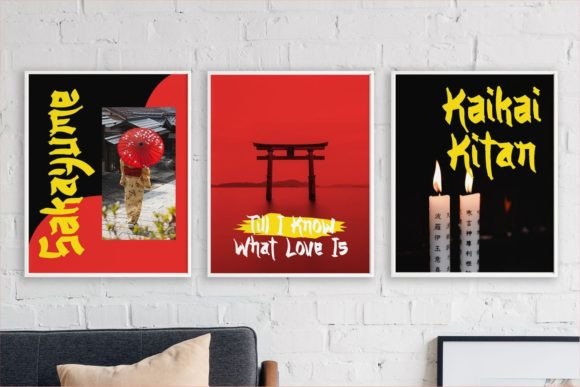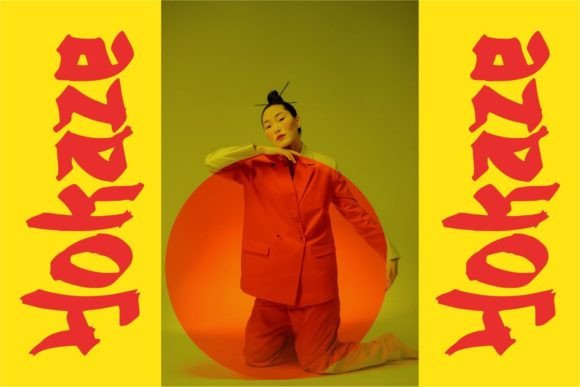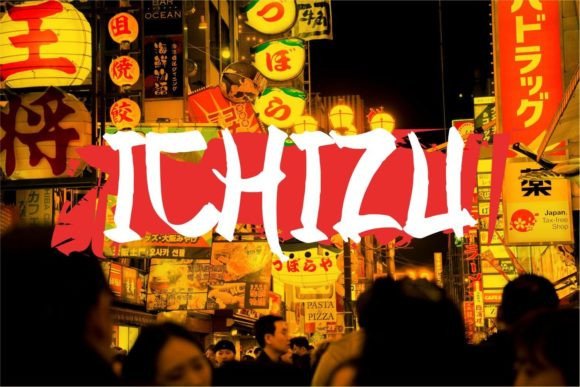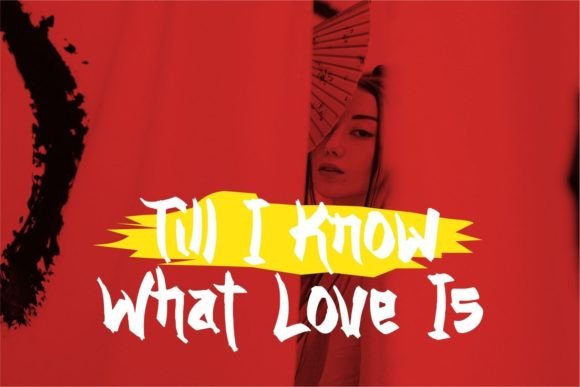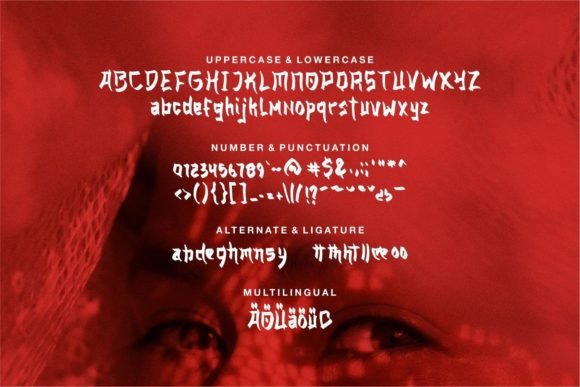
Introduction to Sakayume Font
Sakayume is an original display font with a Japanese style.
It looks so beautiful on invitations, greeting cards, branding materials, business cards, quotes, posters, and more .
Key Features of Sakayume Font